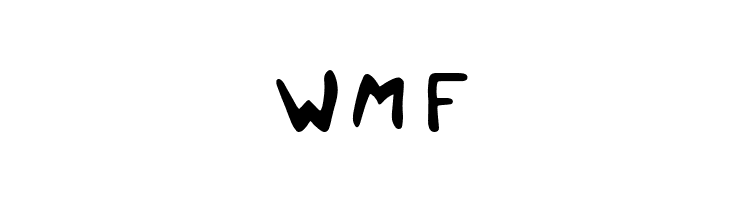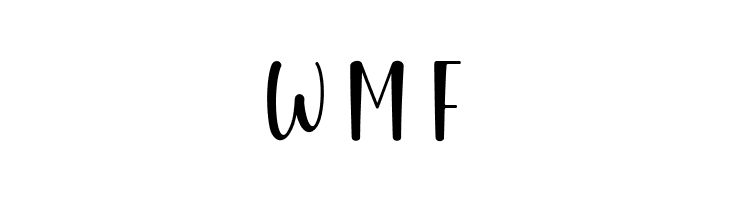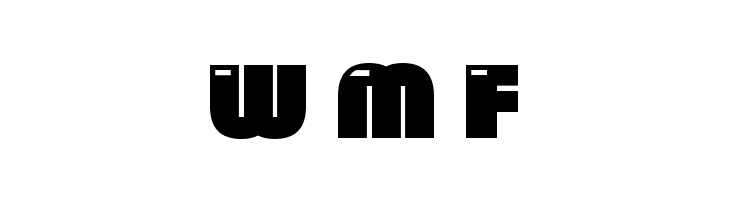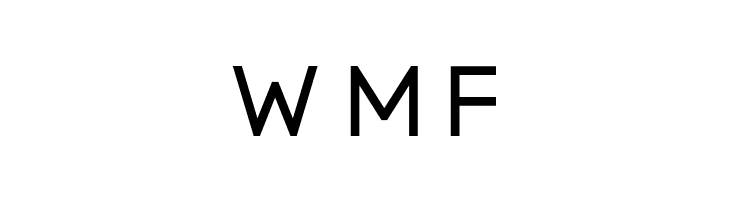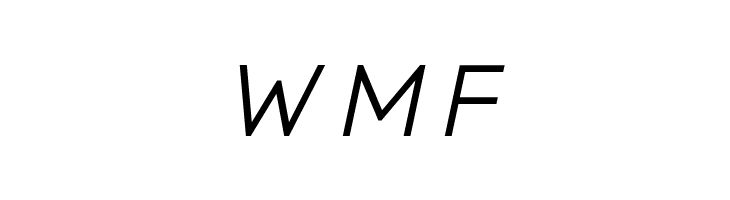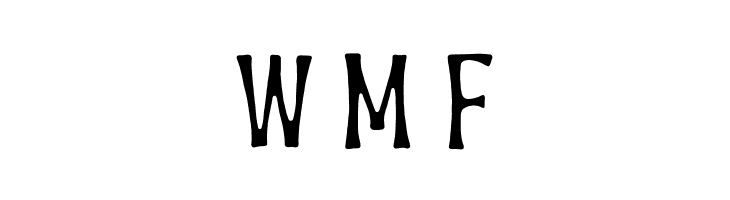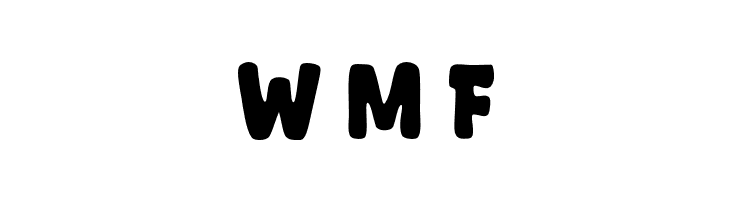
An elegant, high-contrast serif font with refined flourishes.
A high-contrast, elegant serif typeface with refined strokes and classic flourishes.
A rugged, distressed font with a charred, gritty appearance.
A playful, handwritten script font with smooth, flowing lines.
A bold, jagged font with a hand-crafted, edgy appearance.
A bold, artistic font with irregular, hand-crafted characters.
A futuristic, geometric font with a bold, layered design.
A bold, geometric font with a retro aesthetic and unique cutouts.
A bold, italicized retro font with a modern twist.
A bold, playful font with rounded, hand-drawn characters.
A playful, bold handwritten font with dynamic strokes.
A playful, hand-drawn script font with flowing, connected characters.
A playful, bold, and hand-drawn style with rounded edges and script-like flow.
A bold, playful handwritten font with rounded, consistent strokes.
A medieval-inspired font with sharp serifs and intricate detailing.
A bold, gothic Blackletter font with intricate, angular designs.
A playful, hand-drawn font with uneven strokes and a whimsical style.
A bold, modern font with tall, condensed characters and consistent stroke width.
A dynamic, cursive script font with a handwritten appearance.
A dynamic cursive font with elegant, flowing letterforms and a modern calligraphic style.
A bold, pixelated outline font with a retro digital aesthetic.
A pixelated, retro-style font with a digital, geometric appearance.
A playful, modern handwritten font with flowing strokes and a whimsical touch.
A bold, modern sans-serif font with clean lines and strong readability.
A modern, bold italic font with a sleek and dynamic style.
A modern, italic sans-serif font with medium contrast and normal spacing.
A modern, light sans-serif font with geometric precision and minimalist style.
A sleek, modern, light italic sans-serif font with elegant elongation and low contrast.